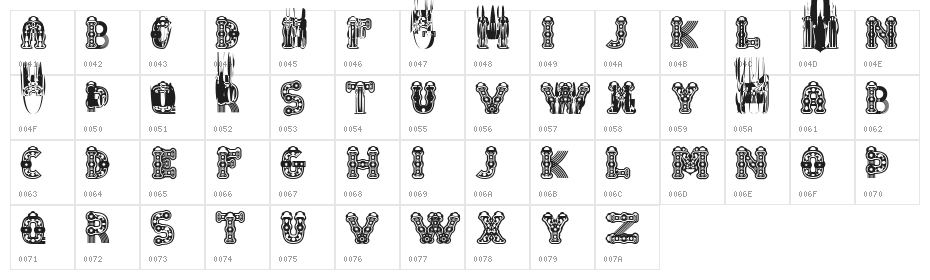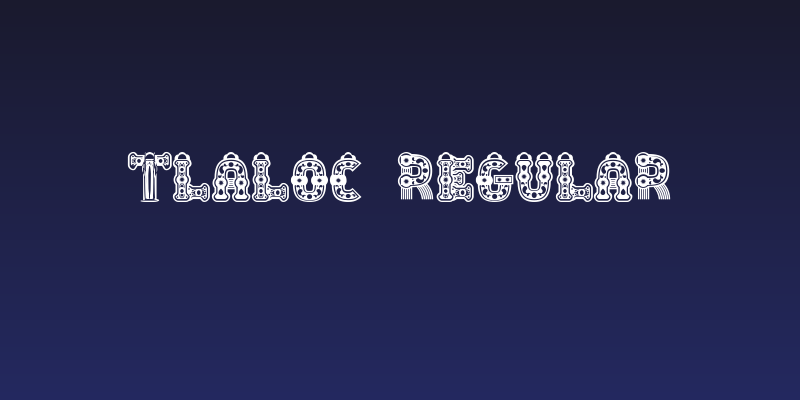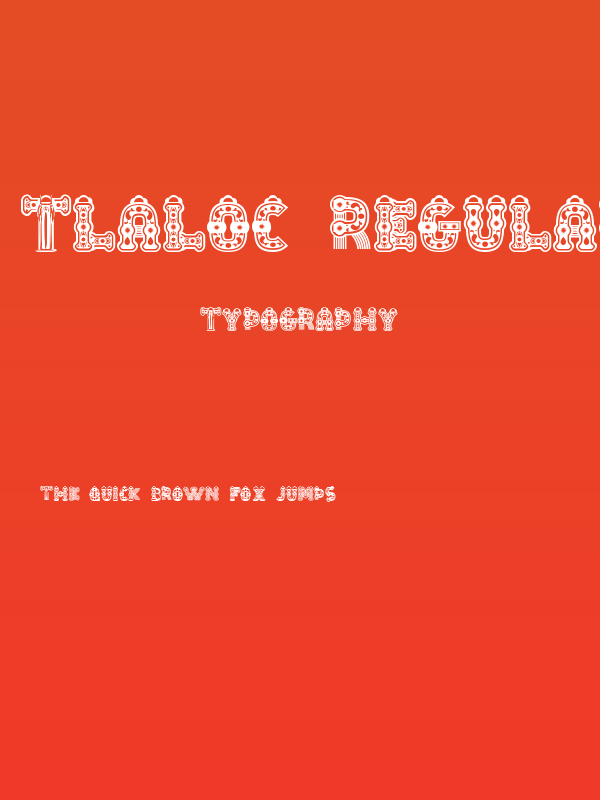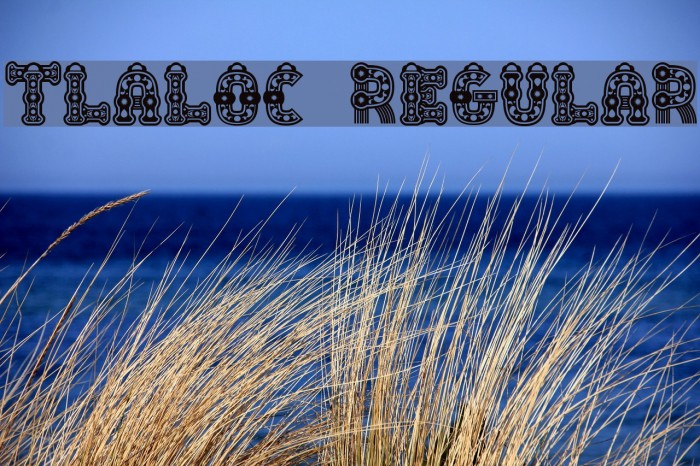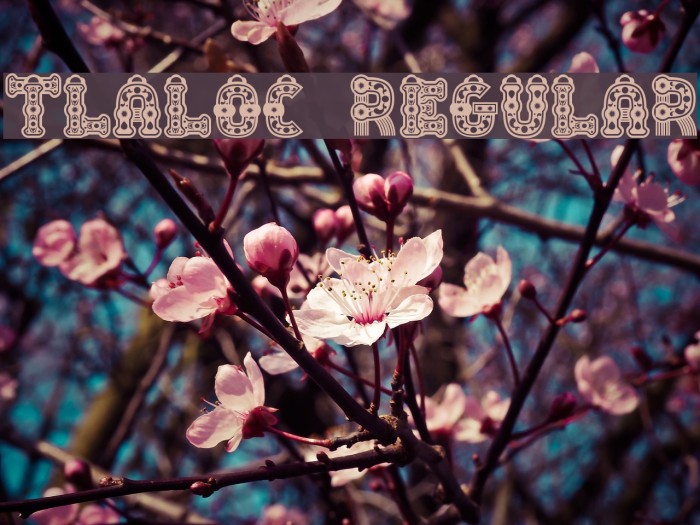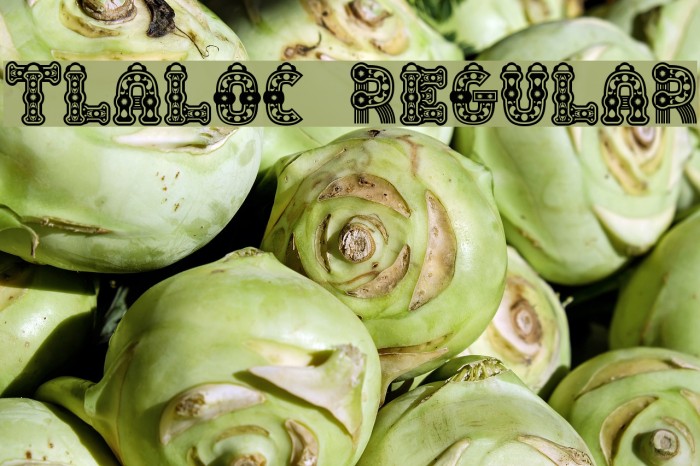
Tlaloc Regular Font
Tlaloc Regular Description
This font features a bold and decorative style with intricate patterns and geometric shapes within each character. The uppercase letters are adorned with unique designs that give a sense of depth and complexity. The font is highly stylized, making it ideal for eye-catching designs. The absence of lowercase letters and numbers suggests a focus on impactful, statement-making text. The special characters are not present, emphasizing the font's decorative nature.
| Proposed Projects | Ideal for posters, logos, and branding materials that require a strong visual impact. |